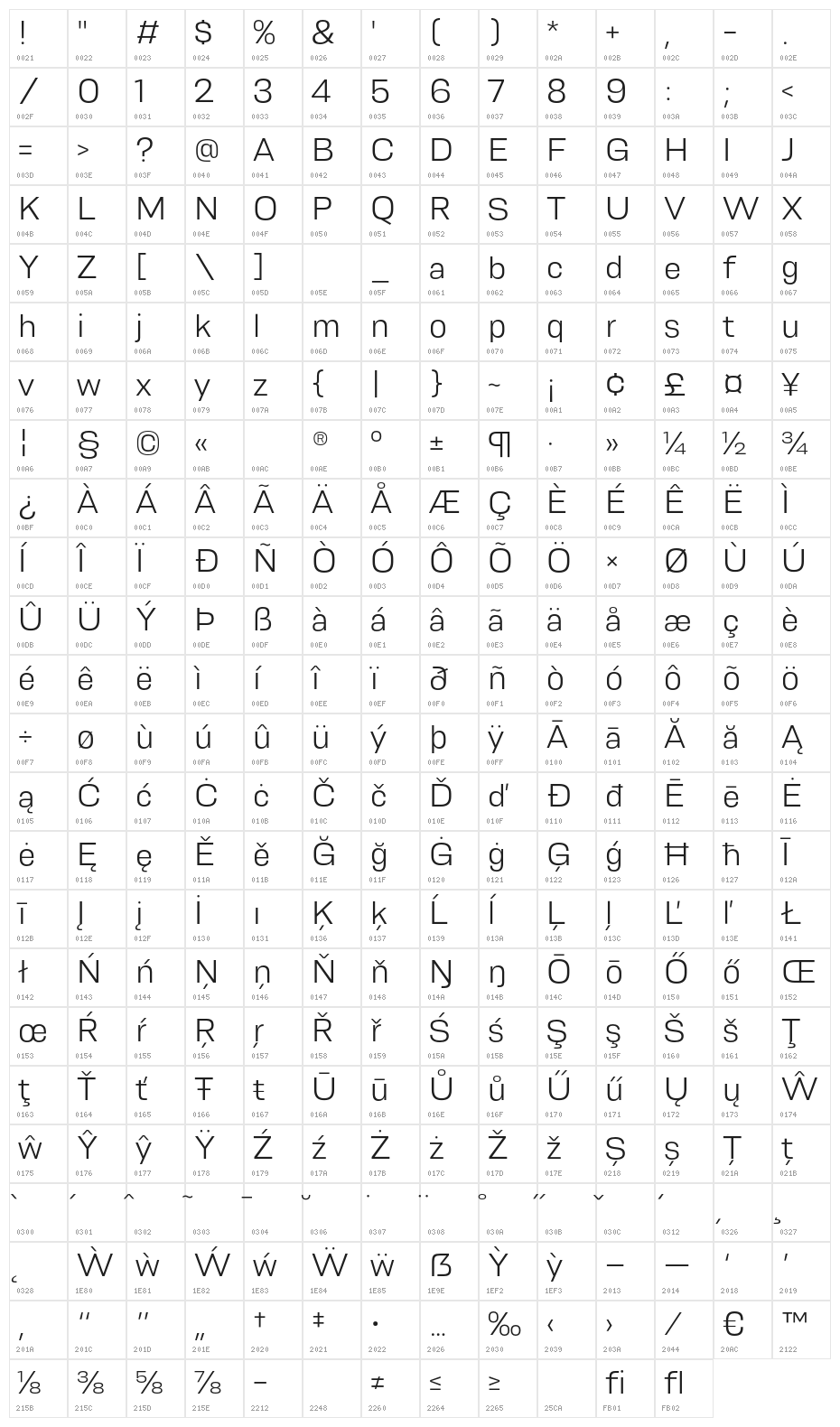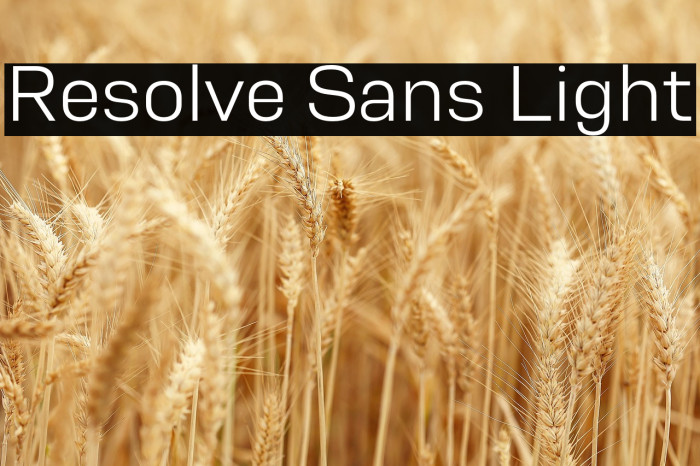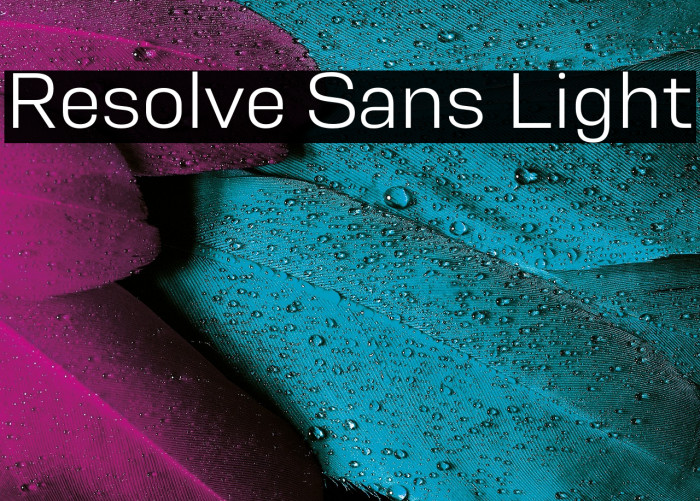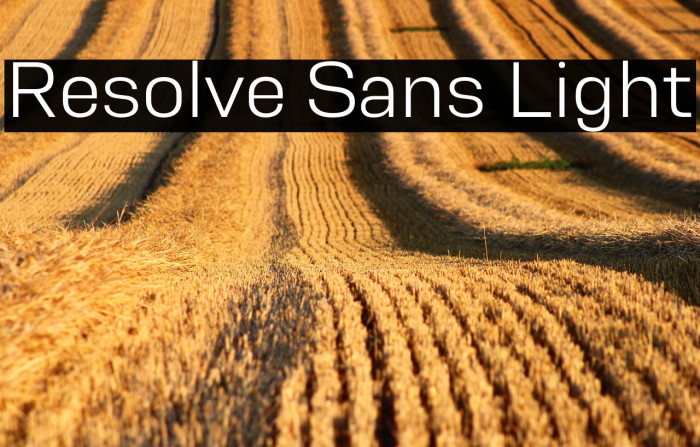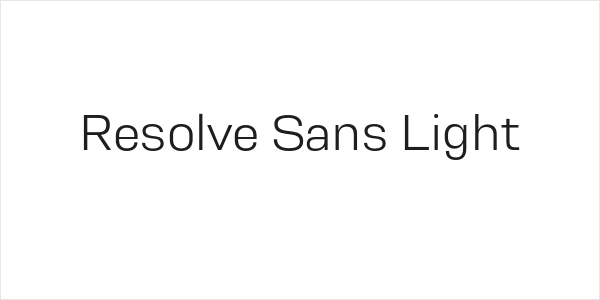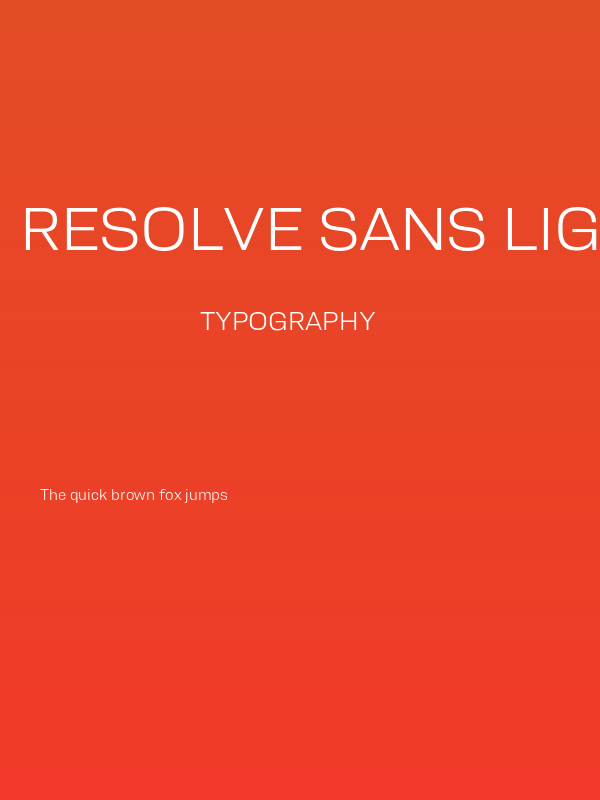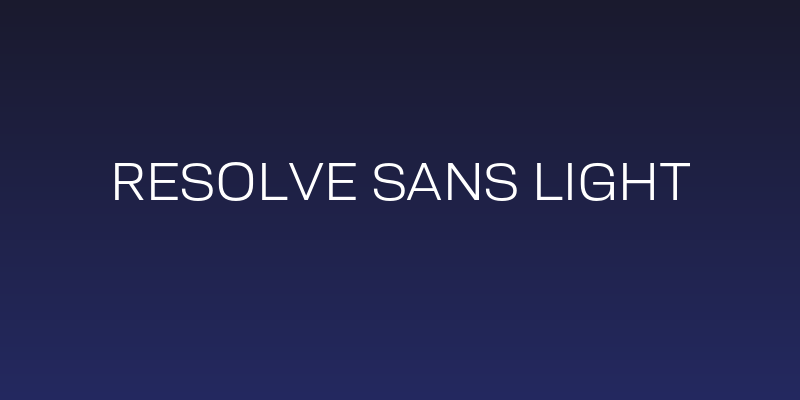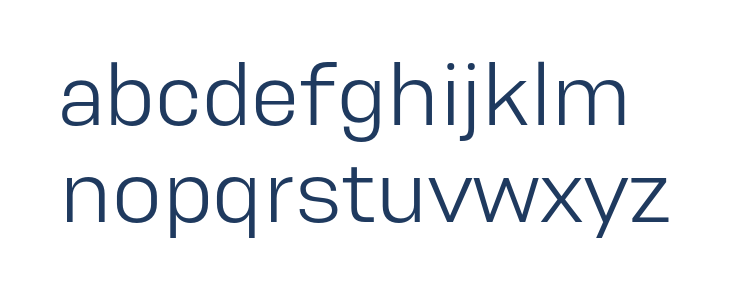
Resolve Sans Light Font
Resolve Sans Light Description
This font features a clean and modern sans-serif design with a light weight, making it ideal for minimalistic and contemporary projects. The characters are evenly spaced, providing excellent readability. The uppercase and lowercase letters are well-proportioned, and the numerals are clear and distinct. Special characters are included, maintaining the font's sleek and professional appearance. Its simplicity and elegance make it versatile for various design applications.